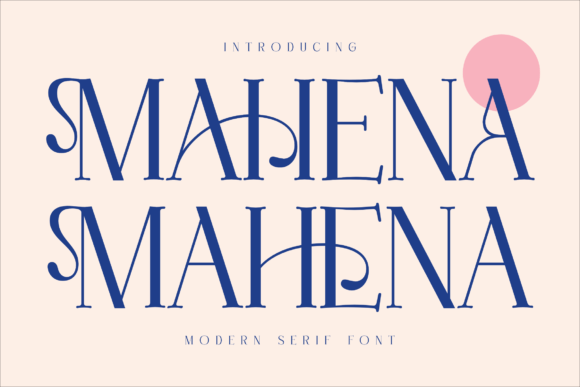
Adorn your digital space with Mahena Font, a captivating serif creation by Storytype Studio, designed to elevate your visual presence with elegance and sophistication. This font family exudes a timeless charm, meticulously crafted to infuse your designs with a touch of luxury and refinement.
Immerse yourself in the world of Mahena Font, where every letterform is a work of art. Its graceful serifs and meticulously balanced proportions lend an air of sophistication to logos, fashion brands, magazines, apparel, lettering, and more. Unleash your creativity and let Mahena Font transform your designs into masterpieces that resonate with your audience.
Journey through the realm of visual storytelling with Mahena Font. Its versatility knows no bounds, allowing you to weave enchanting narratives through every design element. Craft logos that leave a lasting impression, fashion brands that exude elegance, and magazines that captivate readers with their visual allure.
Indulge in the allure of Mahena Font's modern and stylish aesthetics. Its timeless beauty transcends trends, ensuring your designs remain relevant and captivating for years to come. Elevate your brand's identity with a font that speaks volumes about your commitment to excellence and sophistication.
Embrace the power of Mahena Font and elevate your digital presence to new heights. With its unique appearance and undeniable charm, this font family will transform your designs into visual symphonies that captivate and inspire. Step into a world of elegance and refinement, where your creativity knows no limits.